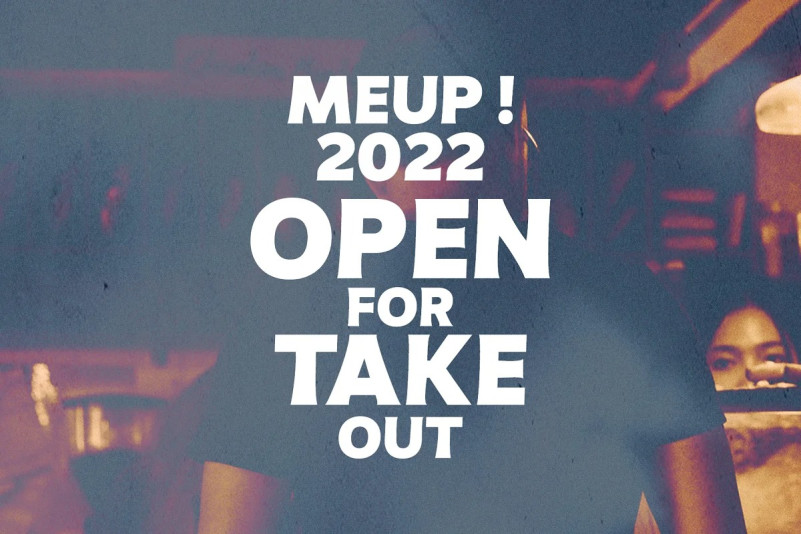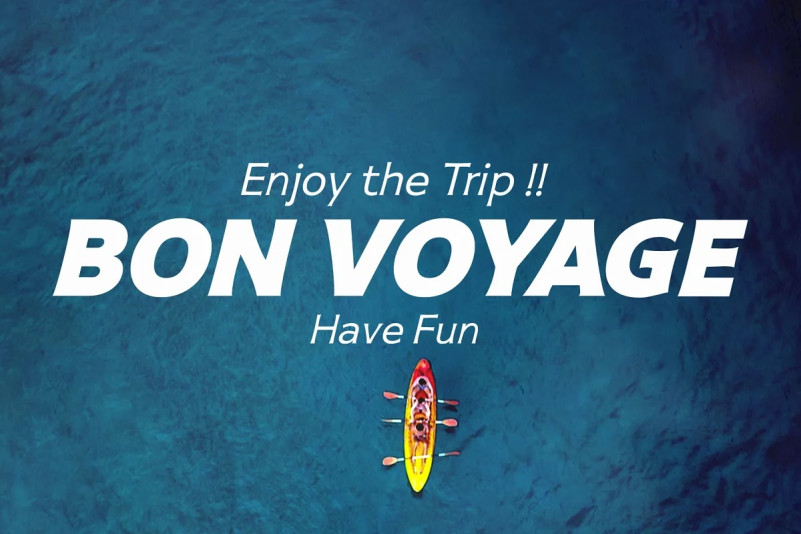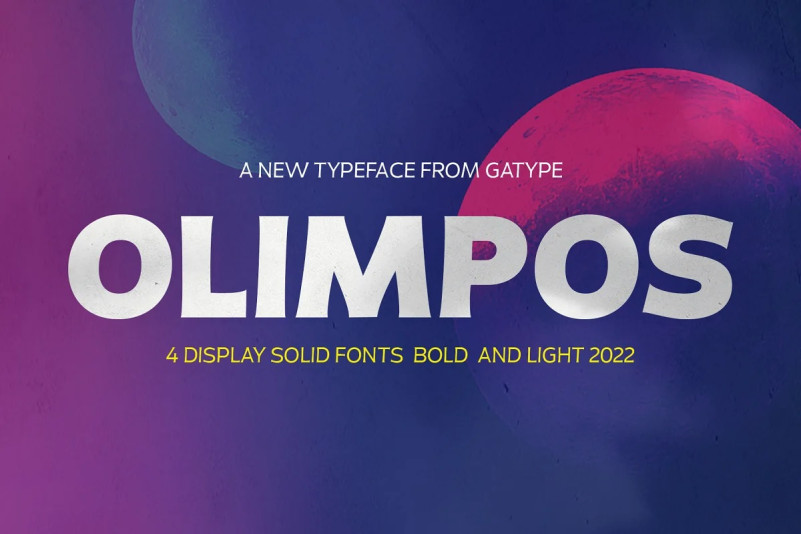
Olimpos Font
Olimpos Font is a Display Serif font that is absolutely perfect for editorial headlines. Her large, bold and slender figure is perfect for posters, t-shirts, and magazine covers. Reserved for capital letters only, this calm and bold typeface is a content creator’s best friend.